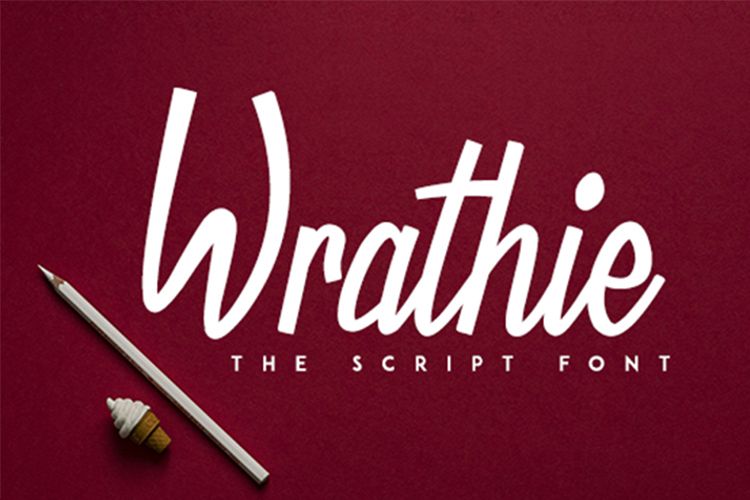
Wrathie - Script Font
Introducing a new Script Font called Wrathie. Wrathie inspired by one of Seven Deadly Sins called WRATH. Wrathie is good for logotype, poster, flyer, book cover, tshirt, packaging, and any more.